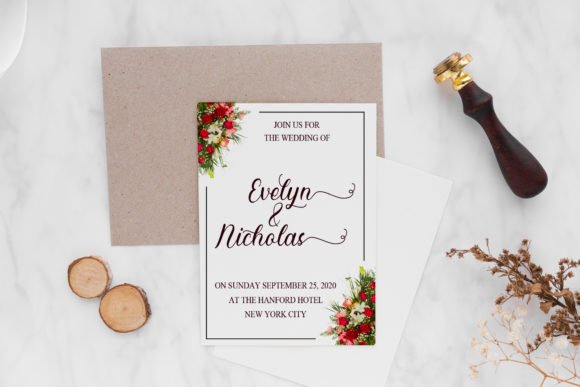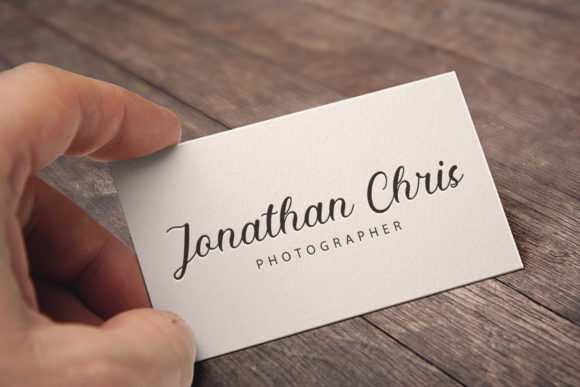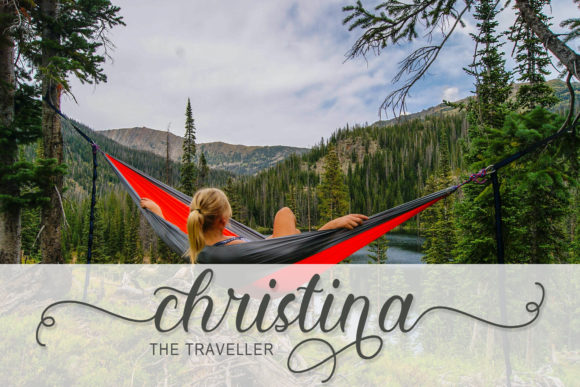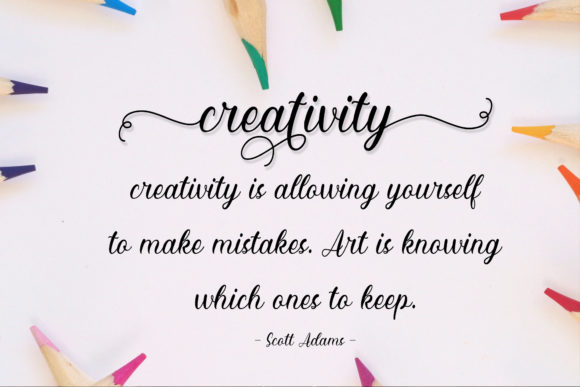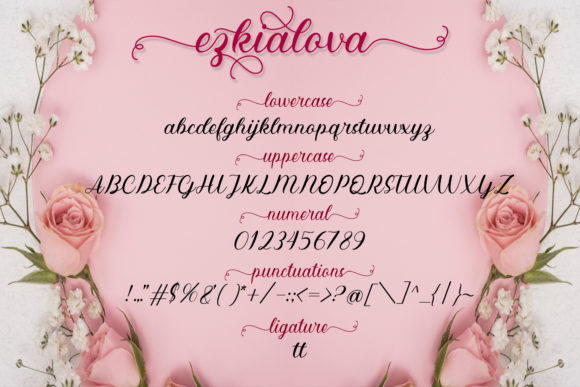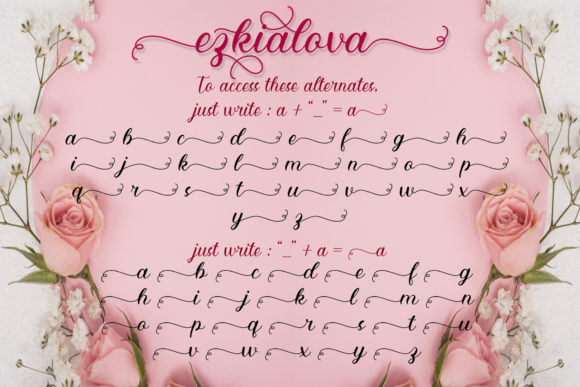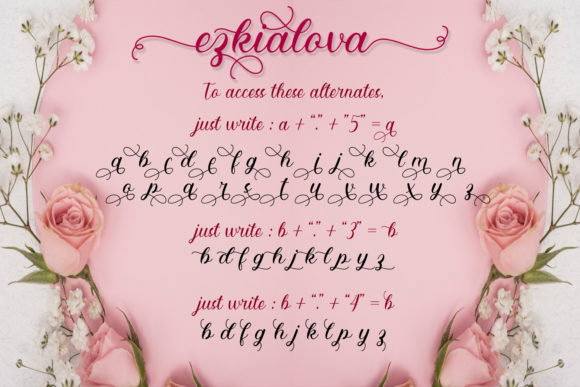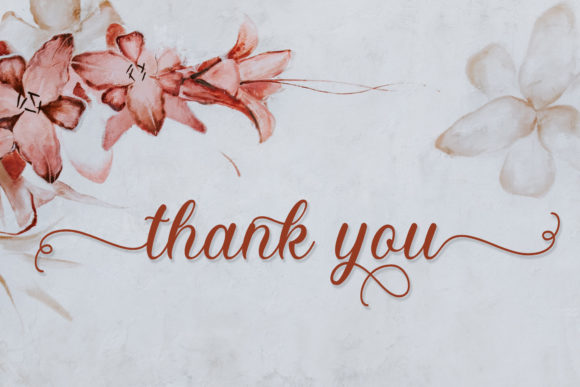
Ezkialova Font
About Ezkialova Font
Ezkialova is a magical handwritten font carefully created with a touch of elegance. It features a varying baseline, smooth lines, gorgeous glyphs and stunning alternates.